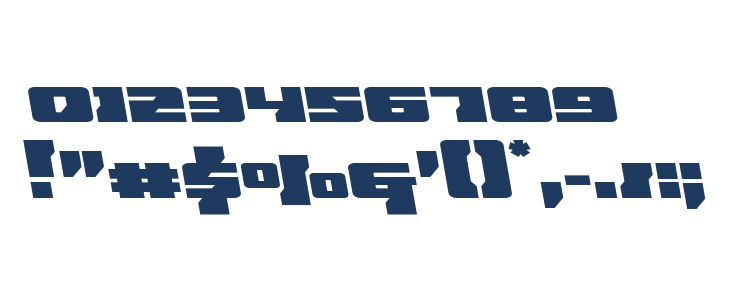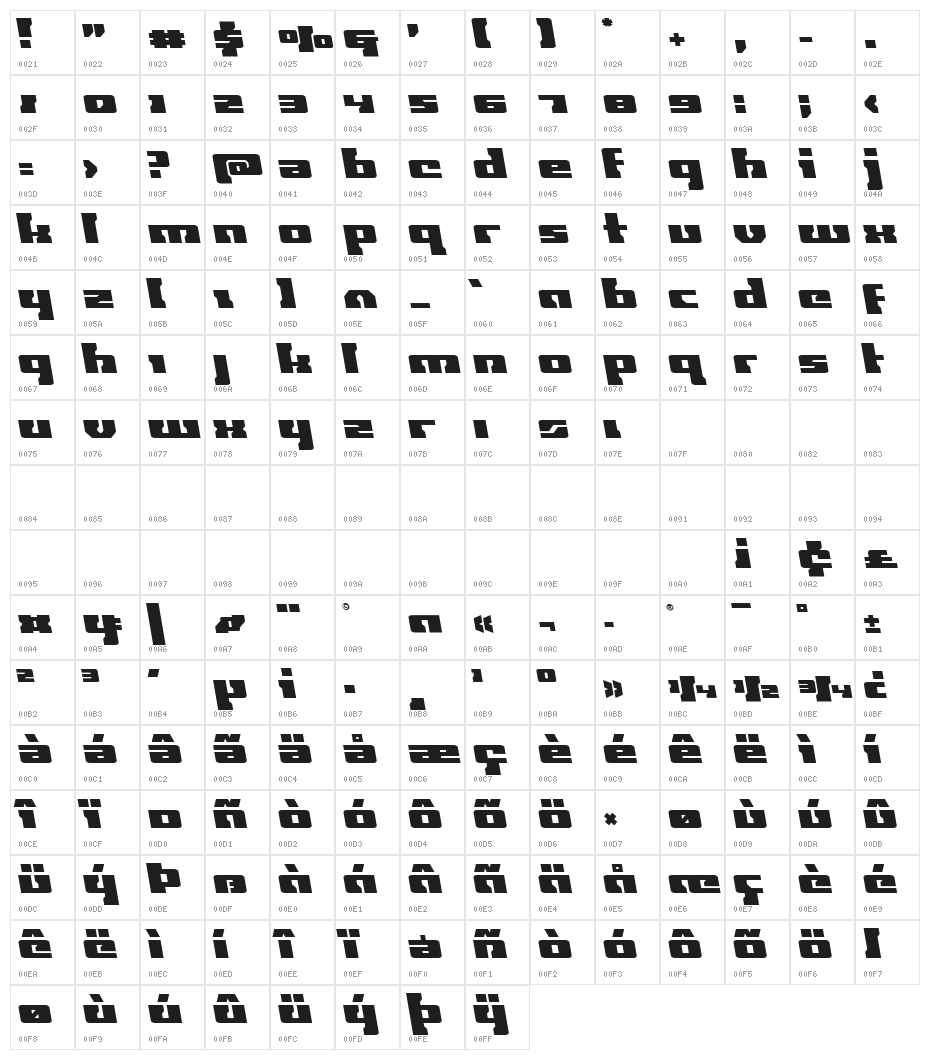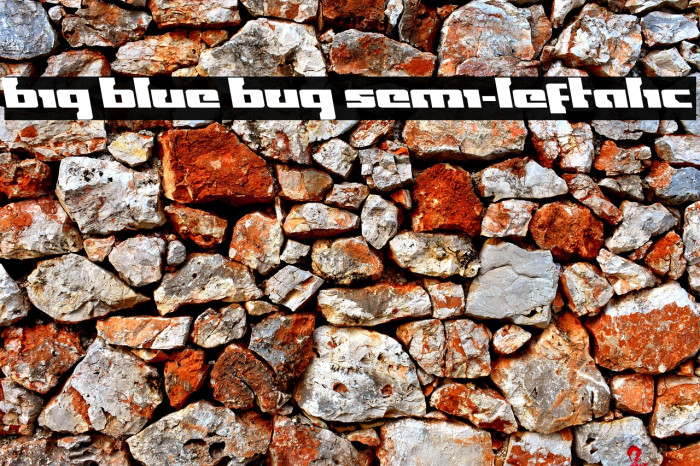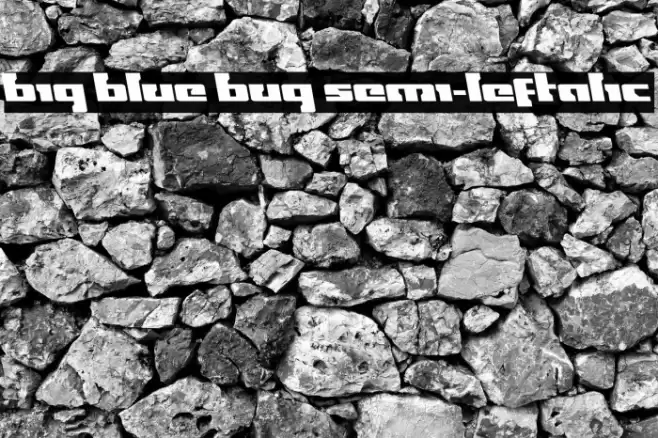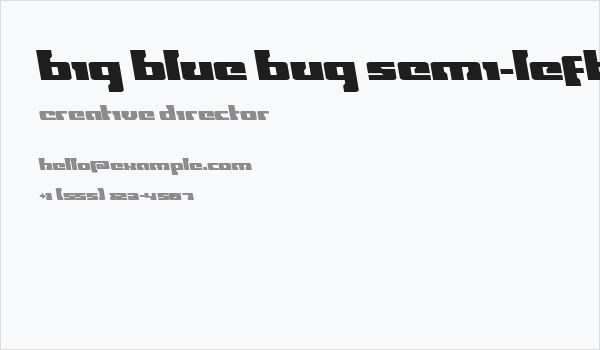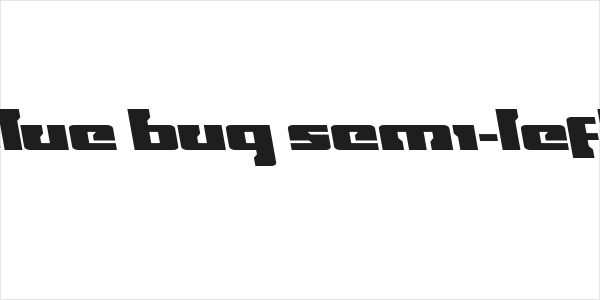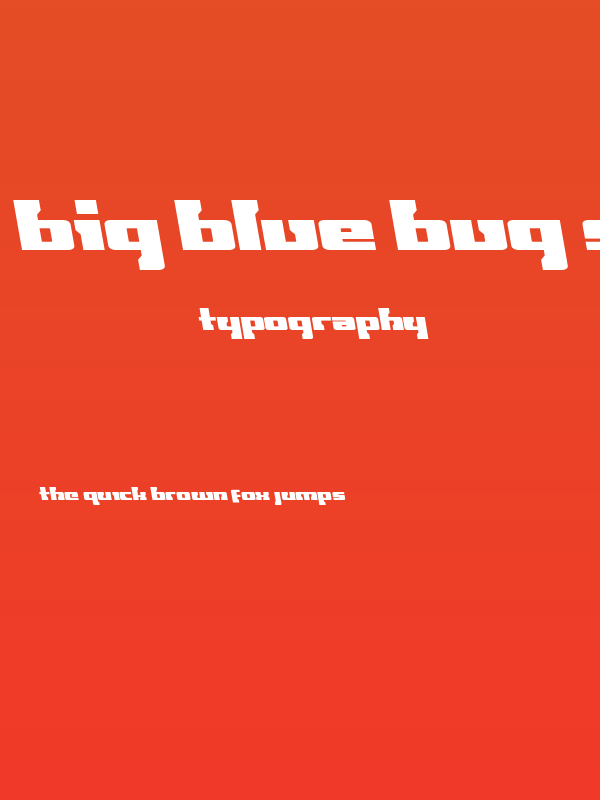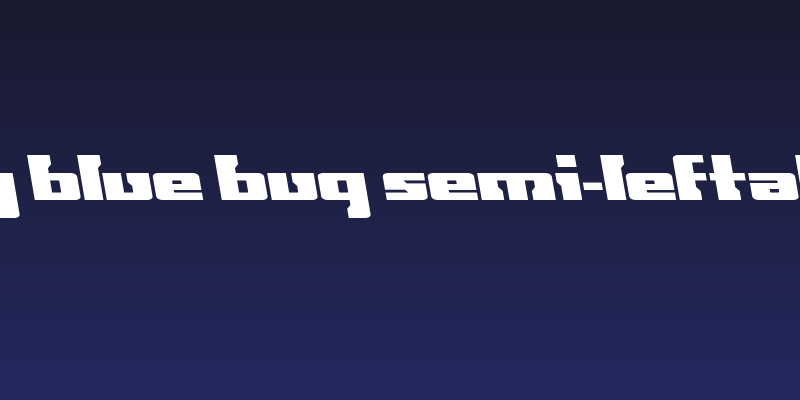
Big Blue Bug Semi-Leftalic Font
Big Blue Bug Semi-Leftalic Description
This font features a bold and geometric design with a distinct blocky appearance. The characters are uniformly thick, creating a strong visual impact. The edges are sharp and angular, giving it a modern and industrial feel. The letters are slightly slanted, adding a dynamic and forward-moving energy to the text. The numbers and special characters maintain the same bold and angular style, ensuring consistency across all elements. This font is highly legible and stands out due to its unique and robust design.